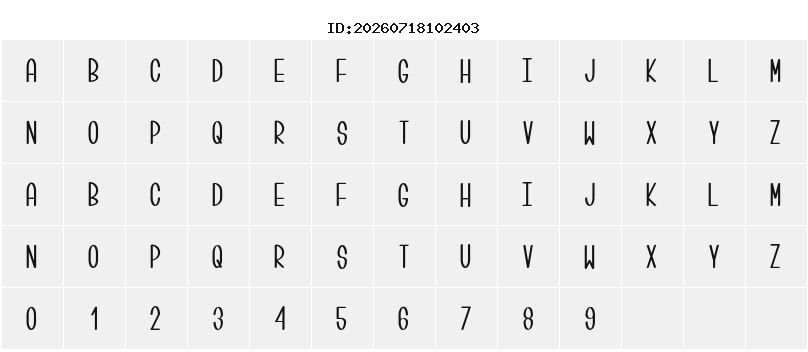
• Font Name: Centi
• Designer: Joe.C
About Centi.otf
Centi.otf is a modern, elegant sans-serif font designed for ultimate readability and visual harmony. Perfect for branding, headlines, web design, and print materials.